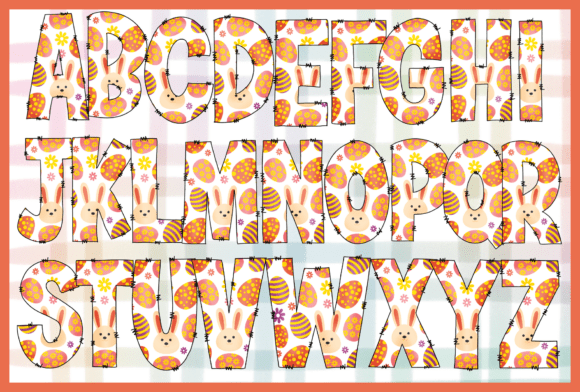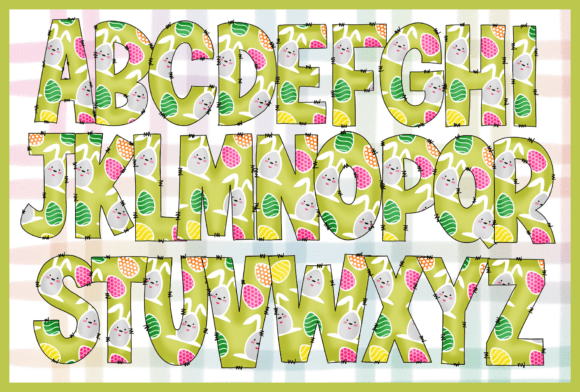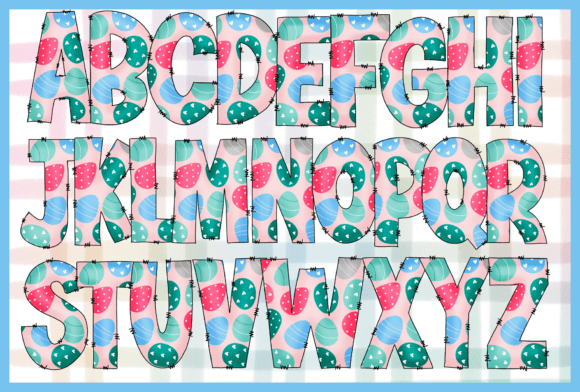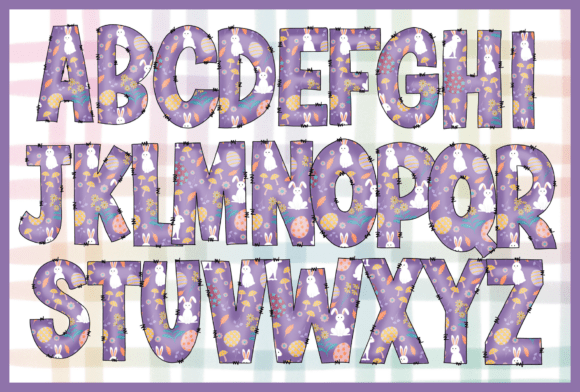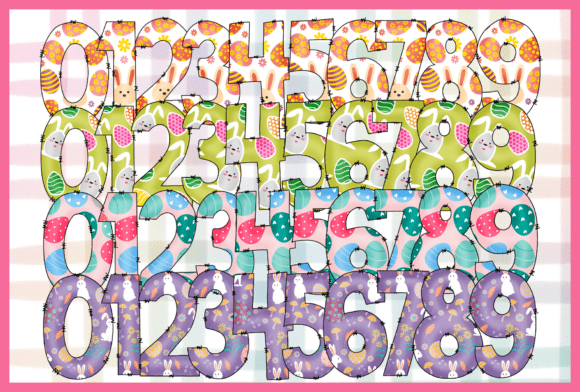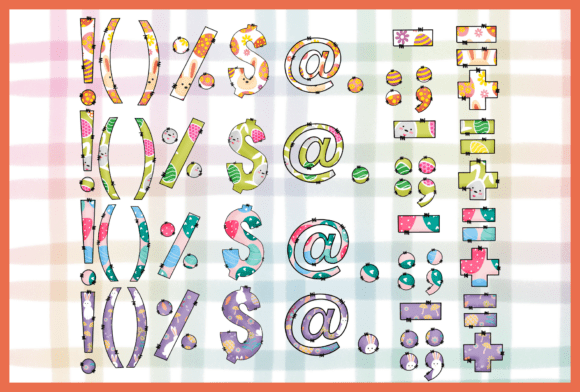
Easter Day 2026 Font: Celebrate with a Delightful PNG Alphabet Set
As Easter approaches in 2026, designers and crafters are on the lookout for festive and fun elements to incorporate into their projects. If you’re searching for the perfect Easter Day font to add a touch of whimsy and joy to your designs, look no further! This article introduces an adorable Easter Day PNG Alphabet Set, featuring 4 unique styles in 4 beautiful color themes, specially designed for Easter projects.
About the Easter Day PNG Alphabet Set
This charming Easter Day PNG Alphabet Set is a high-quality collection of letters and numbers, each featuring charming Easter patterns such as bunnies, eggs, flowers, and soft spring-inspired colors. The set includes:
- 4 unique styles to suit various design preferences
- 4 beautiful color themes to match your Easter project needs
Perfect for Various Creative Projects
Tips and Inspiration for Easter Projects
| Font Name | Easter Day 2026 Font |
The Easter Day PNG Alphabet Set is a delightful and versatile resource for designers and crafters celebrating Easter in 2026. With its 4 unique styles, 4 beautiful color themes, and easy-to-use transparent backgrounds, this high-quality PNG alphabet set is perfect for a wide range of creative projects. Download the Easter Day PNG Alphabet Set today and add a touch of Easter joy to your designs!